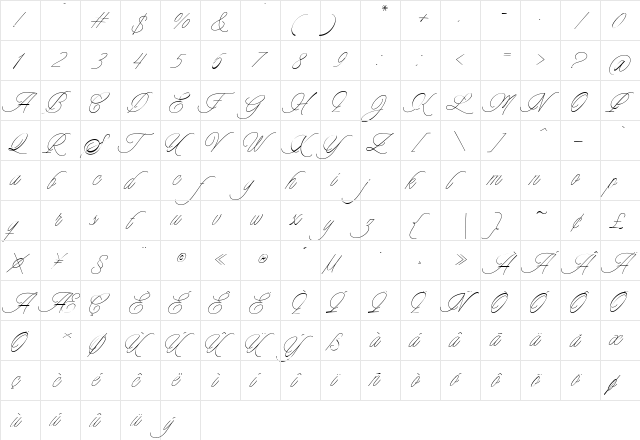
Charmline Script Personal Use Regular
Design Context for Charmline Script Personal Use Typeface
Charmline Script Personal Use brings a calligraphic fluidity to the page — its connecting strokes and expressive curves give it an unmistakably human quality.
Font Pairing: Combine Charmline Script Personal Use with a simple geometric sans for maximum contrast — the tension between flowing curves and clean structure is a classic typographic pairing.
Pro Tip: Use Charmline Script Personal Use for short runs of text — names, titles, or taglines. Extended body copy in script faces tires the eye quickly.